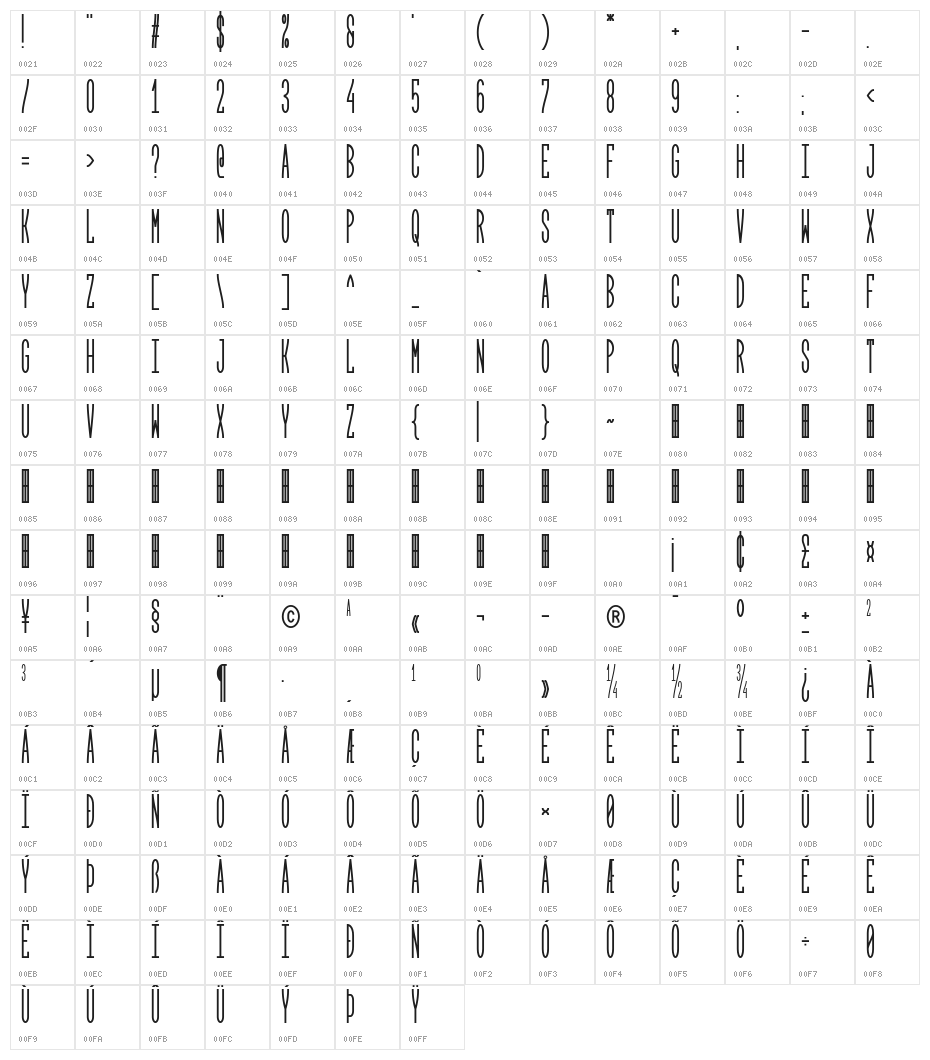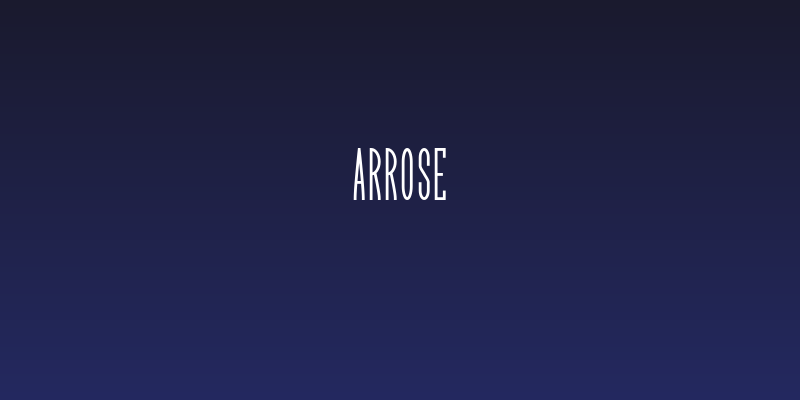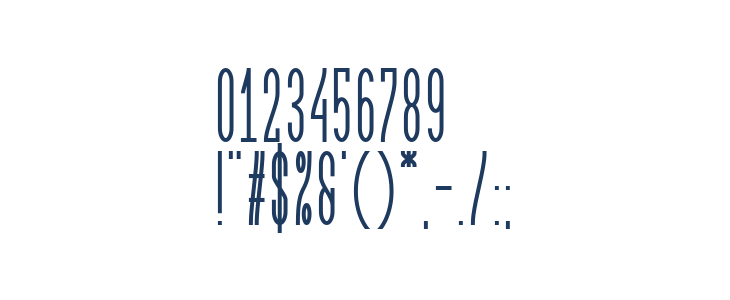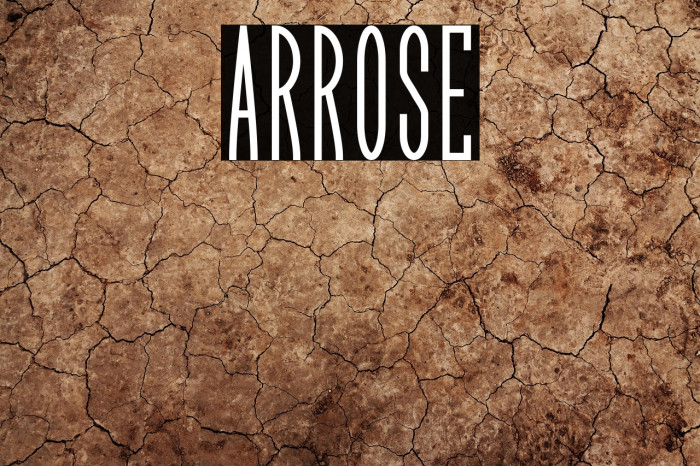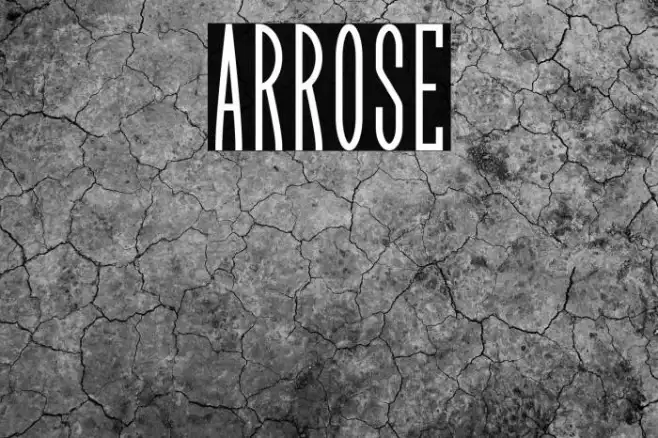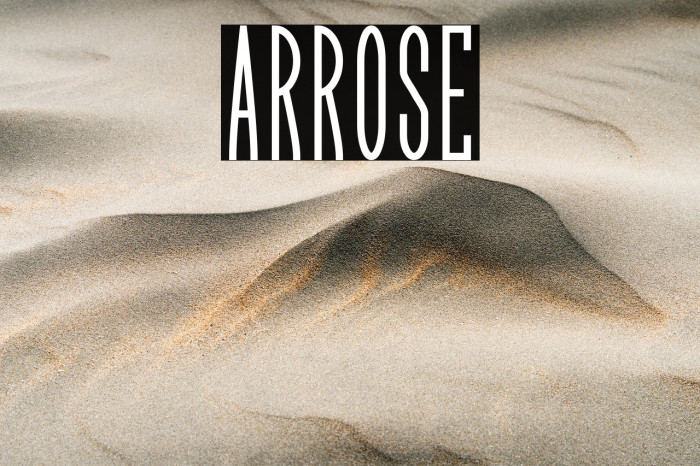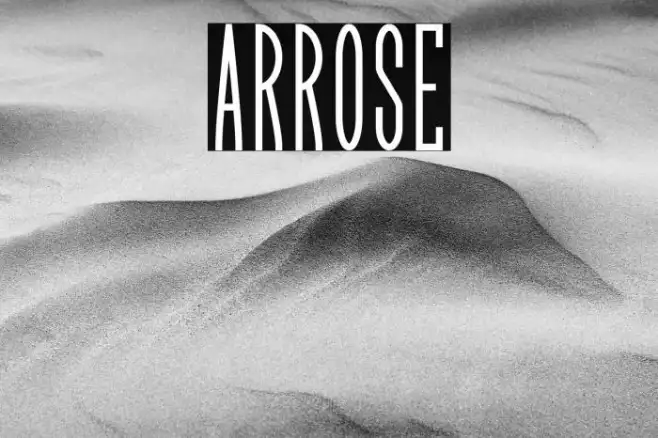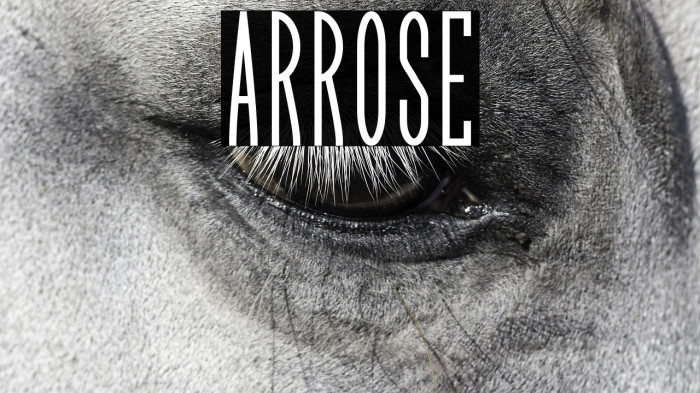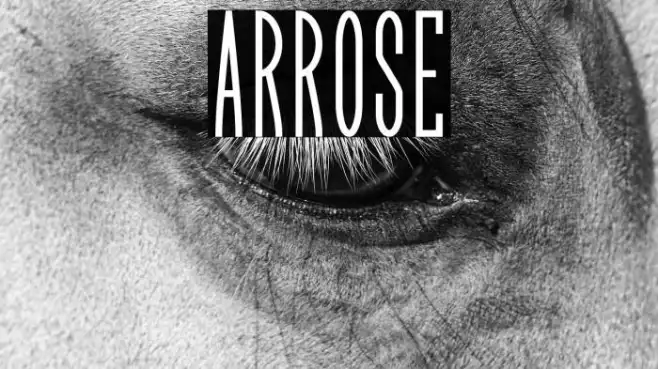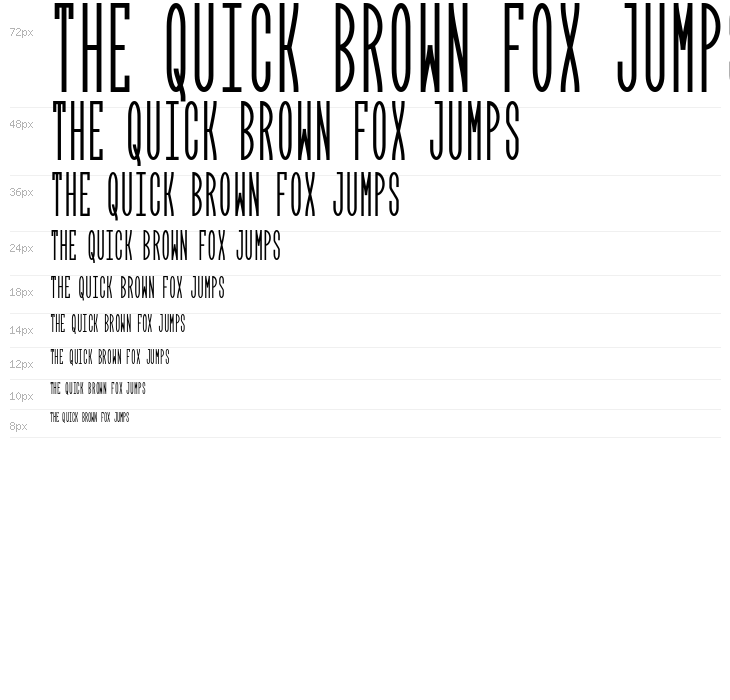
Arrose Font
Arrose Description
This font features an elongated and narrow design, giving it a distinctive and modern appearance. The characters are tall and thin, with a consistent stroke width that maintains a clean and minimalistic look. The uppercase and lowercase letters share a similar height, enhancing the uniformity of the typeface. The numerals are equally slender, aligning well with the overall aesthetic. Special characters are included, maintaining the same narrow and elongated style. This font's unique structure makes it stand out, suitable for creative and contemporary design projects.
| Proposed Projects | Ideal for fashion magazines, modern art posters, branding for luxury products, and innovative digital media. |